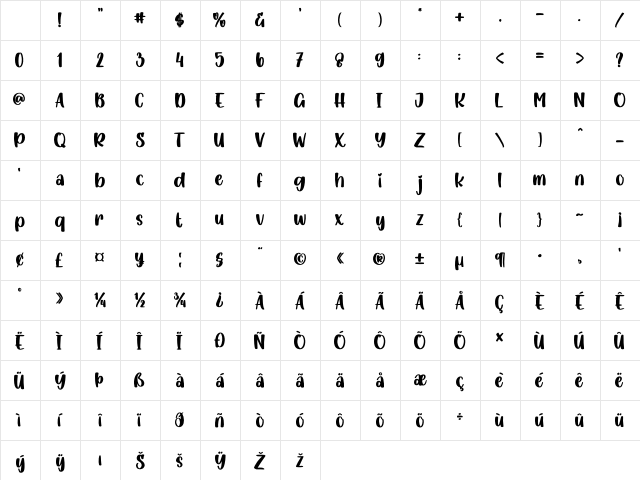
Complete Christmas Buttermilk Regular glyph index. Displaying only characters natively supported by Christmas Buttermilk Regular font.
Christmas Buttermilk is a composed and adaptable typeface that performs quietly and consistently across a wide range of design contexts.